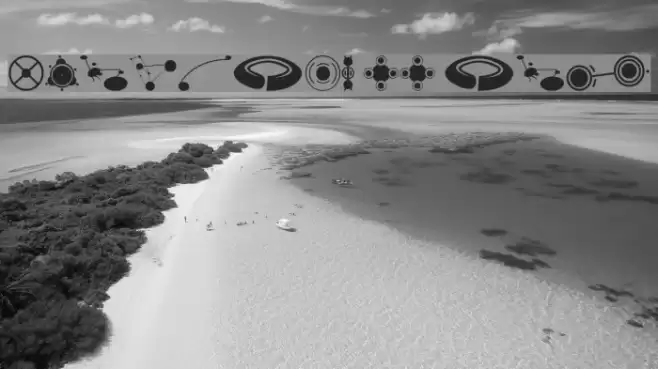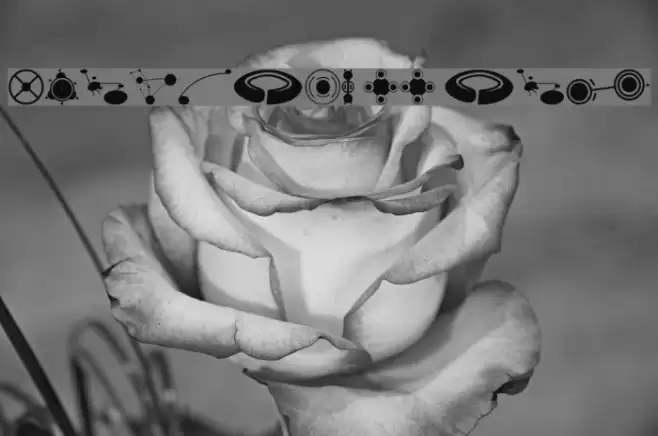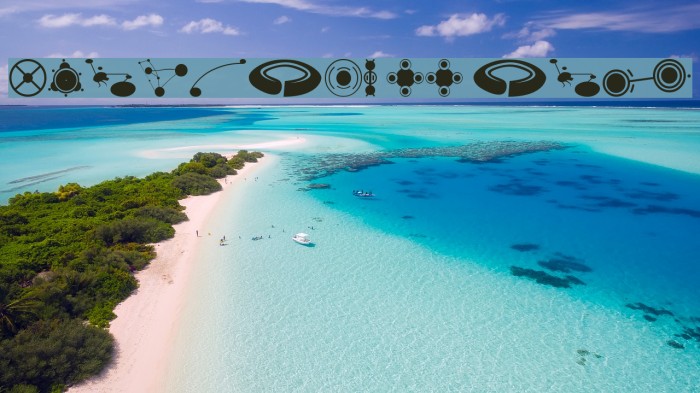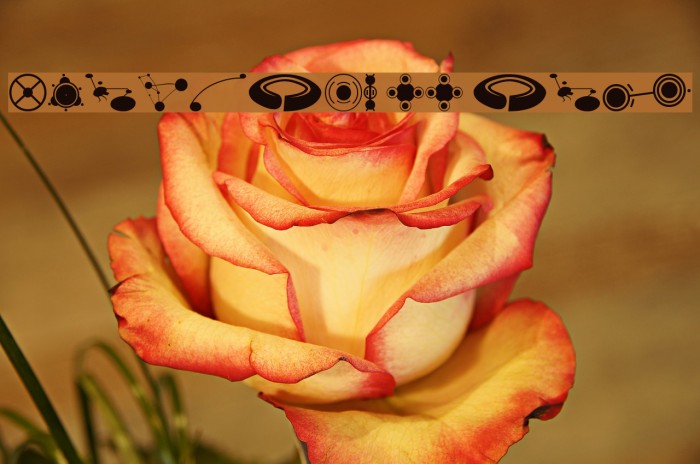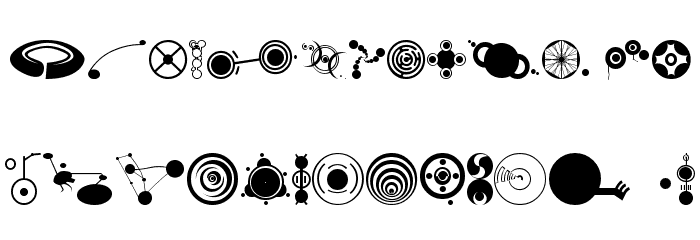
CropBats II AOE Font
CropBats II AOE Description
This design features a collection of abstract and geometric symbols that resemble a fusion of modern art and scientific diagrams. Each character is a unique composition of circles, lines, and dots, creating a sense of movement and complexity. The symbols vary in density and intricacy, with some appearing as simple line drawings and others as filled shapes. The overall aesthetic is futuristic and experimental, making it suitable for creative and unconventional projects. The design does not follow traditional typographic conventions, instead offering a visual language that is open to interpretation.
A collection of abstract, geometric symbols with a futuristic and experimental aesthetic from Images & Symbols fonts.
- Proposed Projects: Ideal for use in artistic projects, sci-fi themed designs, experimental branding, or as decorative elements in digital art.
- Overall Style: Futuristic, Experimental
- Use Case: Logos, Decorative elements, Artistic projects